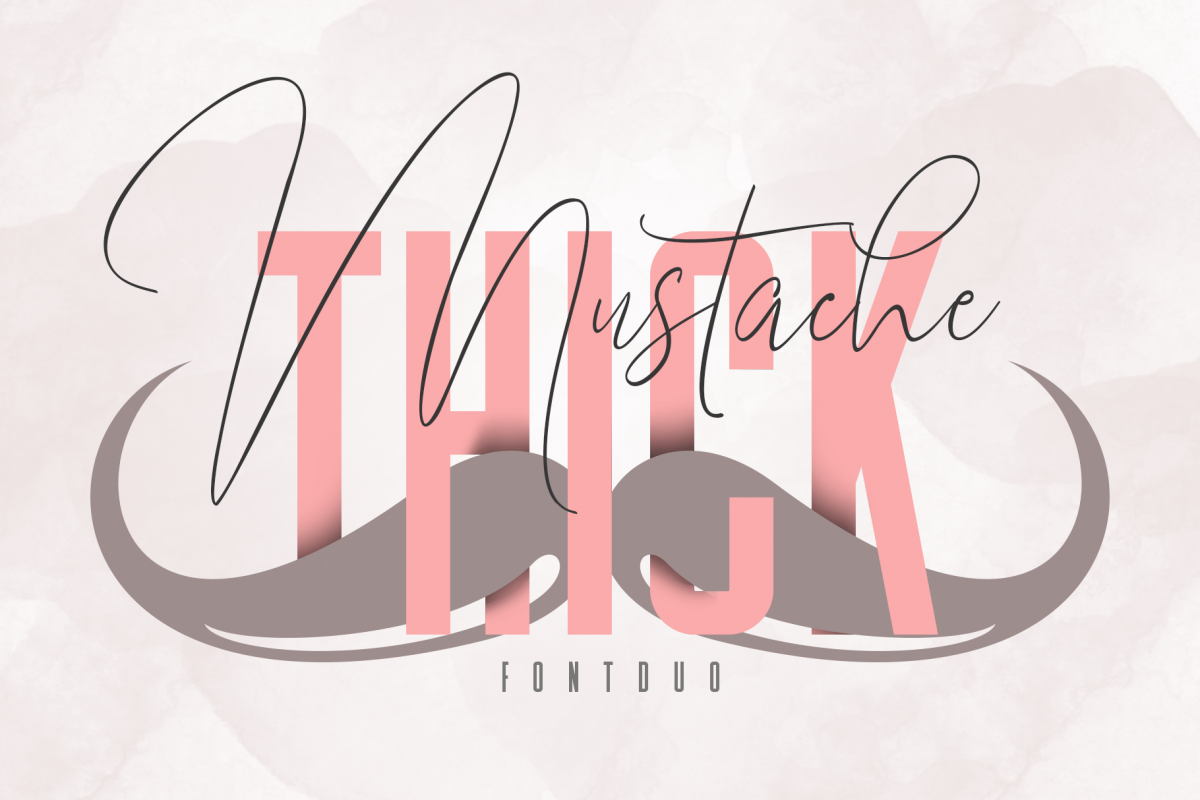
Mustache and Thick
THICK
MustacheSlant
Mustache
Mustache and Thick
Mustache and Thick are two different font types; Mustache is a script font with typical handmade, a work that is purely a result of handmade, has a natural characteristic. this is perfect for invitations, signatures, blogs, social media, business cards, product brands.; THICK is a normal sans font with its delicate and gentle characteristic. It is perfect for invitations, signatures, blogs, social media, business cards, product brands.
• Mustache has Stylistic standard, Stylistic Alternates and ligatures. and includes uppercase and lowercase letters, numbers and punctuation marks.
• Thick, includes uppercase and lowercase letters, numbers and punctuation.